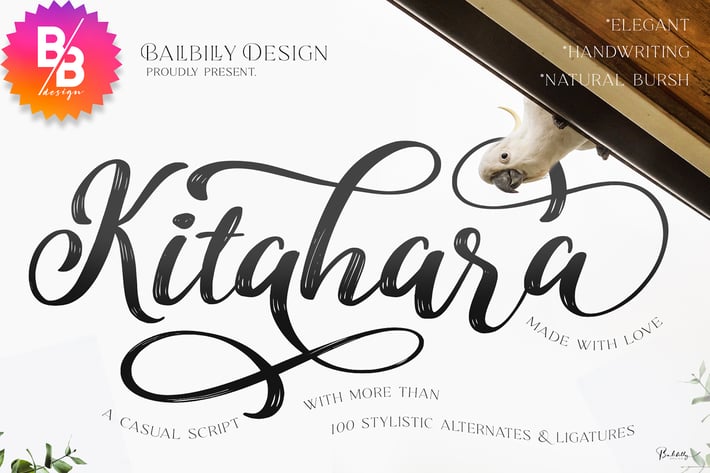
Kitahara - Casual Script Font
Kitahara – A Casual Script
A charming, unique, and strikingly versatile font inspired by the beauty of Japanese culture, Kitahara allows you to create beautiful hand-crafted typography instantly. It’s suitable for use in a wide range of design projects and is guaranteed to make your text stand out. Whether for magazines, postcards, logos, websites, DIY projects, invitation cards, Instagram stories, quotes, wedding projects, and more, Kitahara offers a perfect balance of casual yet captivating lettering.
In the future, the font will evolve with alternative styles, swashes, ligatures, and new variations of Kitahara.
Perfect for branding, decoration, craft, cricut, Photoshop, Procreate, Canva, poster, magazine and events such as Christmas, Thanksgiving, St. Patricks, Valentine's Day, Birthday, Anniversary, Engagement, Wedding, and beyond.